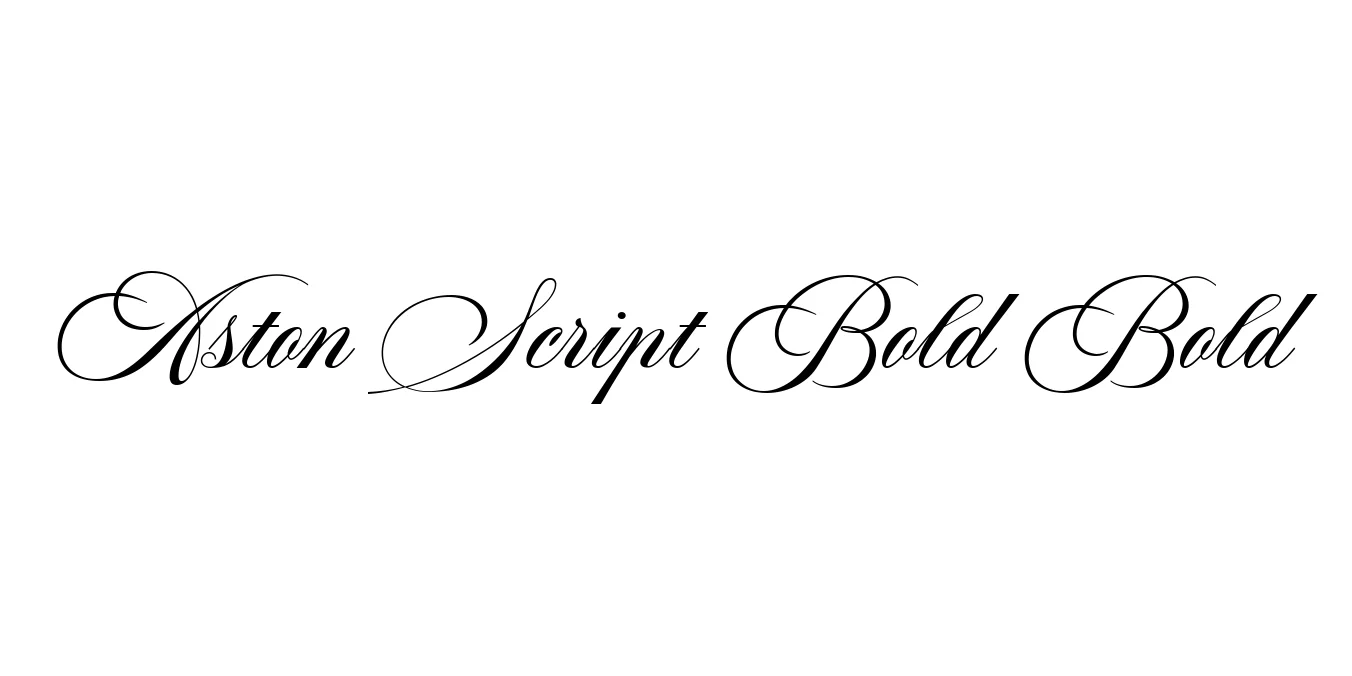
Aston Script Bold Bold
Designed by Teerayut Punsopa
Aston Script Bold Bold is a sophisticated and fluid calligraphic typeface designed to bring a touch of hand-lettered elegance to digital projects. Characterized by its sweeping swashes and high-contrast stroke weights, this font captures the essence of modern brush lettering while maintaining a high level of legibility. Its bold variant emphasizes these qualities, providing a stronger visual presence that works exceptionally well for headlines and focal points in graphic compositions.
The history of Aston Script lies in the intersection of traditional penmanship and contemporary graphic design needs. It was developed to offer designers a versatile tool for creating high-end aesthetic layouts, particularly in the luxury goods and wedding industries. With its extensive character set and smooth curves, it remains a popular choice for those looking to convey personality and premium quality in their visual communications.
Aston Script Bold Bold Best Uses
Ideal for creating high-end logos and premium visual identities.
Perfect for sophisticated invitations, RSVP cards, and event signage.
Adds an aesthetic, hand-drawn touch to creative social media headers and quotes.
Enhances the premium feel of cosmetic, fashion, and artisanal product labels.